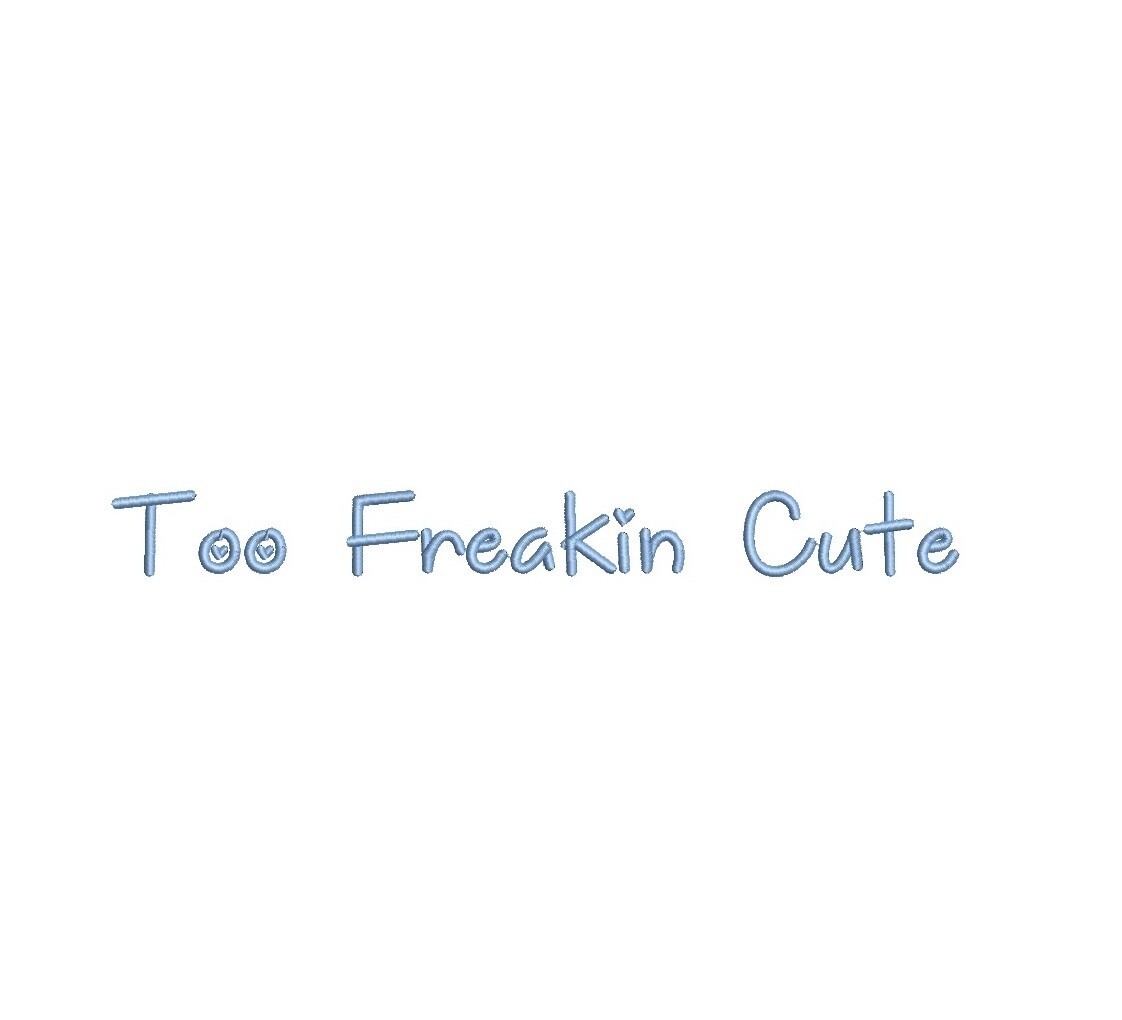
Embrace the adorable charm of 'Too Freakin Cute Regular ESA' font, tailor-made for embroidery enthusiasts seeking irresistibly cute and charming designs. This delightful typeface adds a dose of cuteness to your creations, capturing hearts with every stitch. Seamlessly compatible with Wilcom Studio e4.5.6 and Hatch 3 versions and above, it effortlessly integrates into your digitizing workflow. Its playful curves and endearing strokes ensure impeccable stitch quality, elevating your embroidery projects to a level of sheer adorableness. Ideal for sweet monograms, quotes, and decorative elements, this ESA font sparks creativity and guarantees a ridiculously cute masterpiece. Embrace the cuteness with 'Too Freakin Cute Regular ESA' font today!